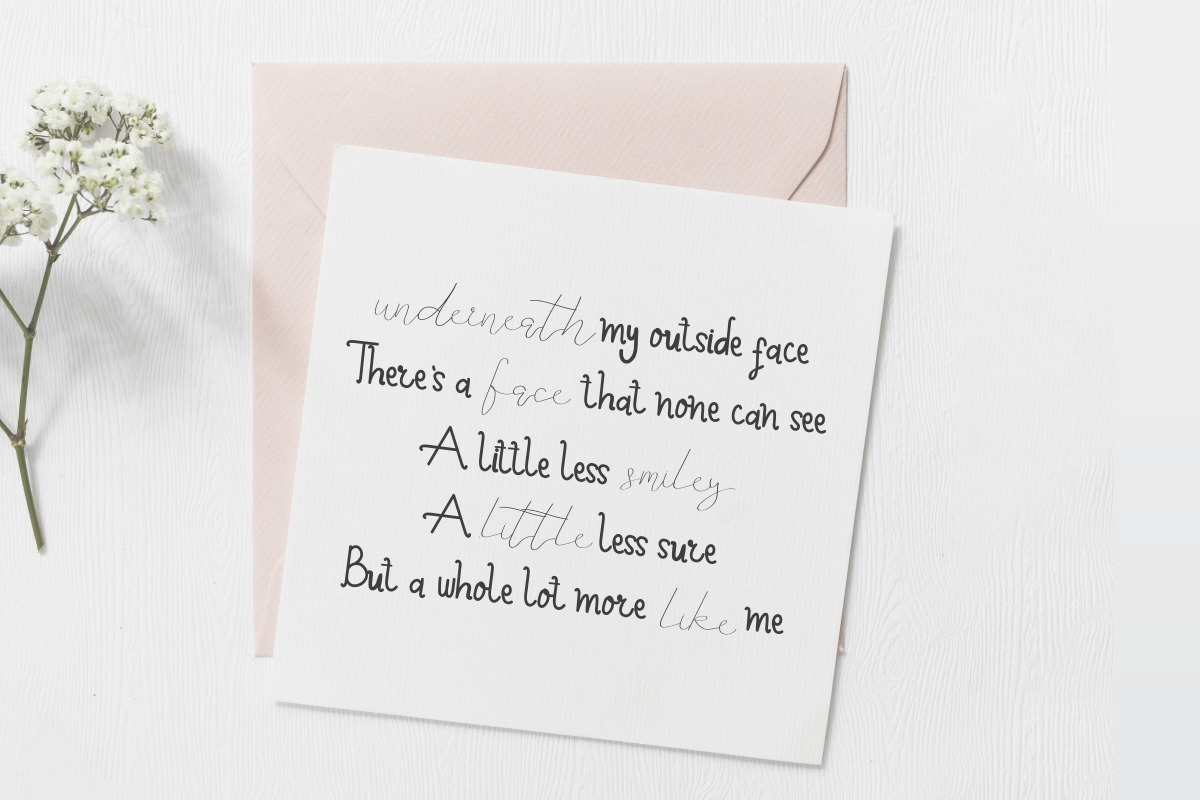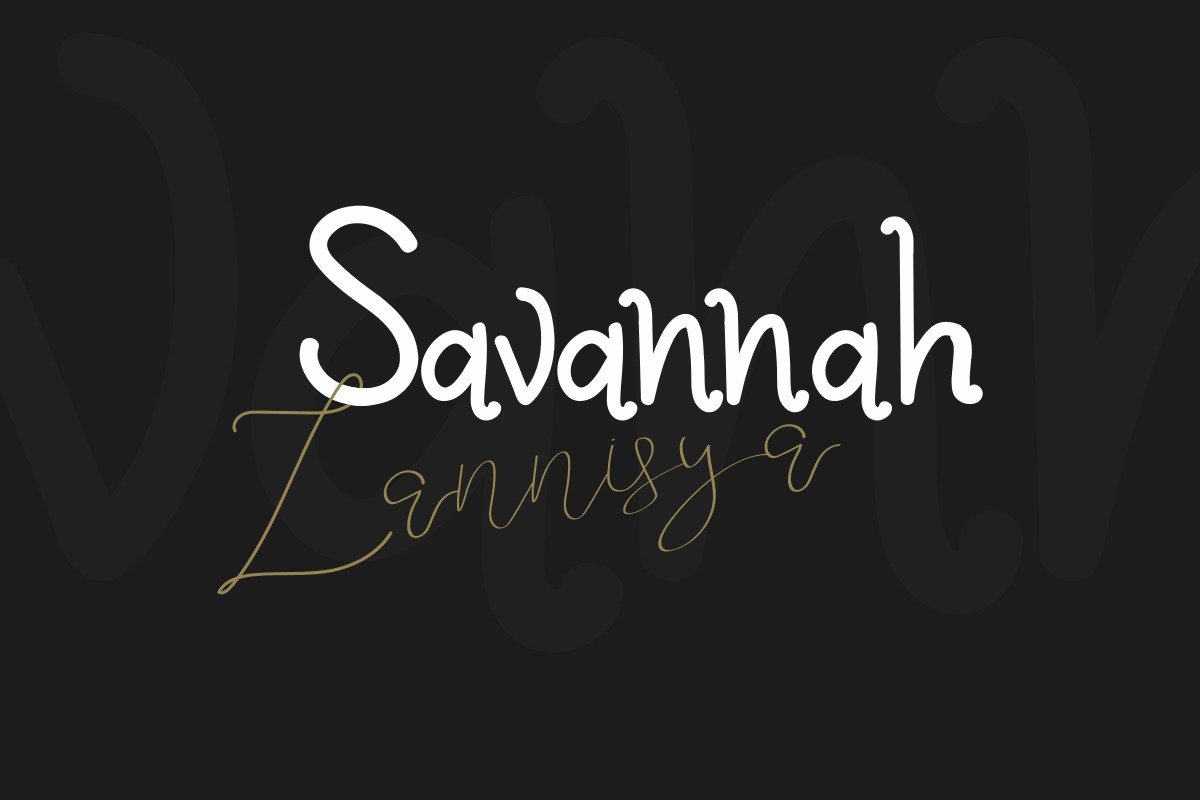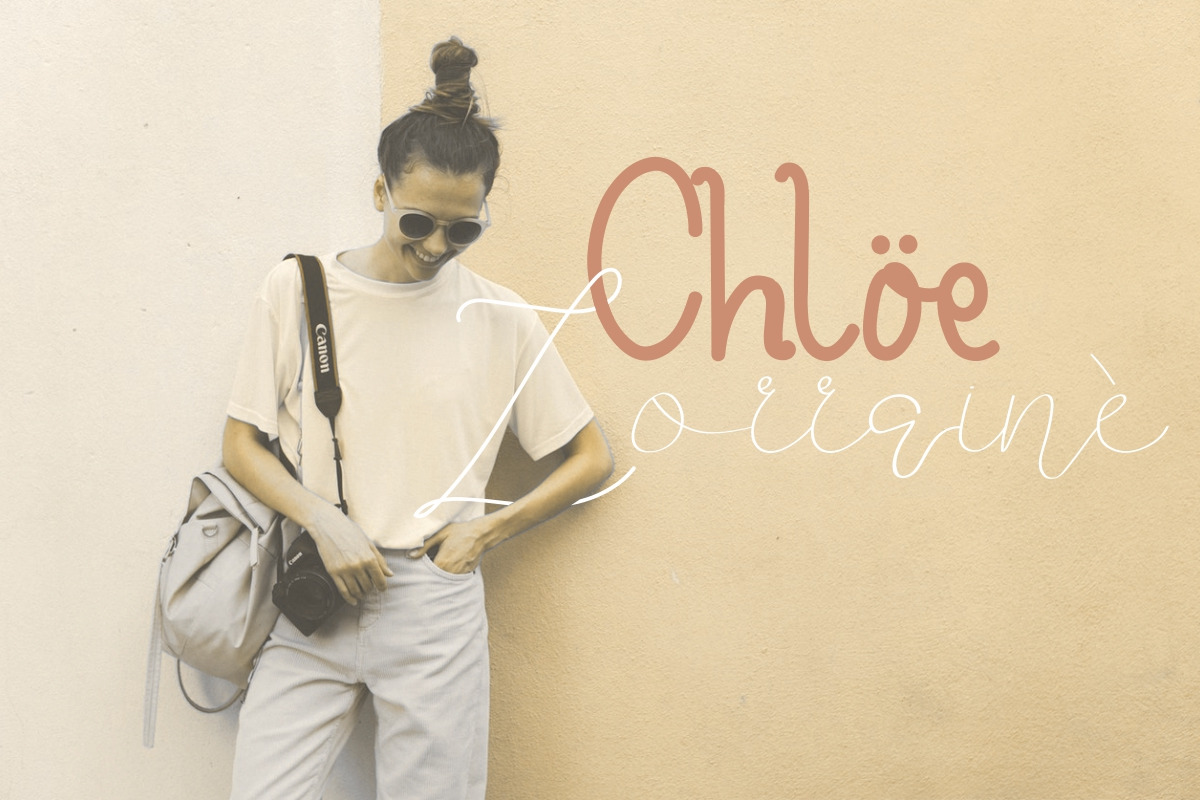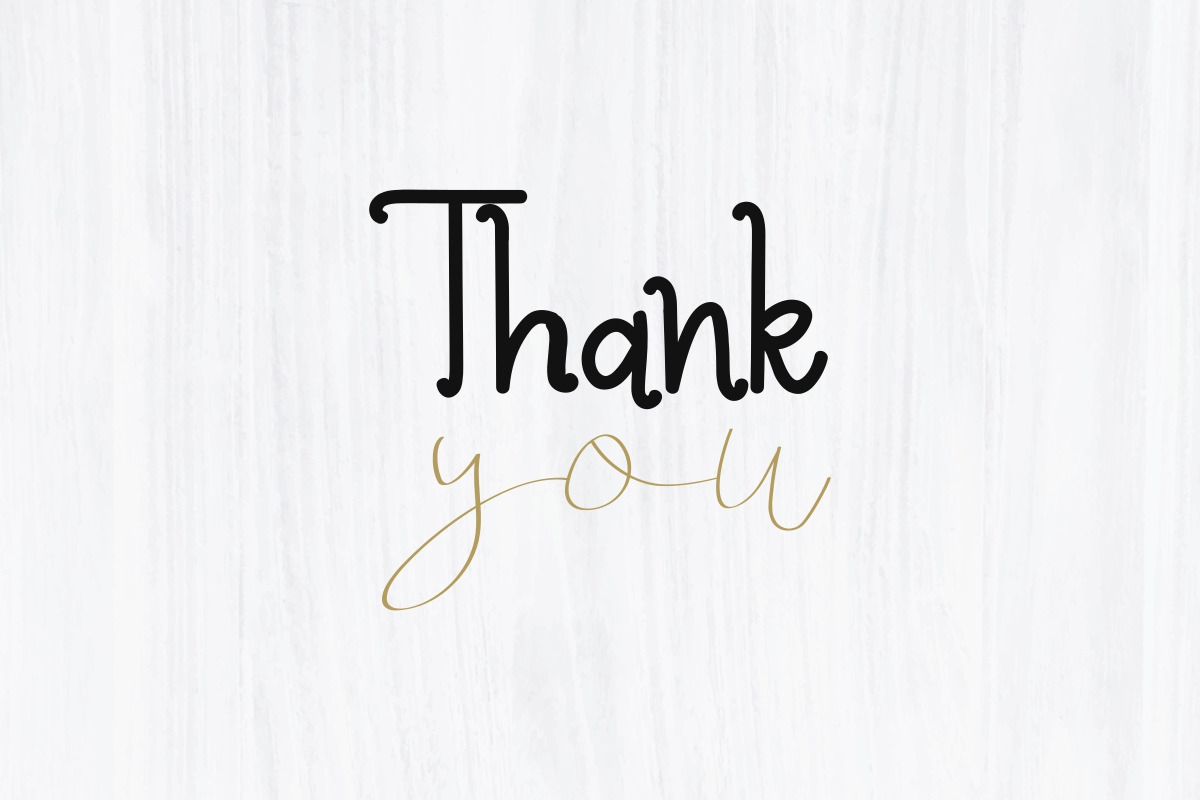
Arsya Edelwiess Font Duo
Today EdricStudio is going to present one of our latest font which is perfectly crafted from our studio. Please welcome : Arsya Edelwiess Font Duo
This new font is a Font Duo family, which has two different style font : Sans Serif and Handwriting Script. With these two styles you can explore many industries and designs categories. With an extendend licenses you can create anything you want : Branding (logo, stationery, bizcard, head letter, folder etc), promotions stuff (flyer, brochure, postcard etc), Digital marketing (Banner, Ads, cover etc), Personal Invitation, Magazine, Website etc
Plus Arsya Edelwiess Font Duo is also support many international languages characters glyphs.